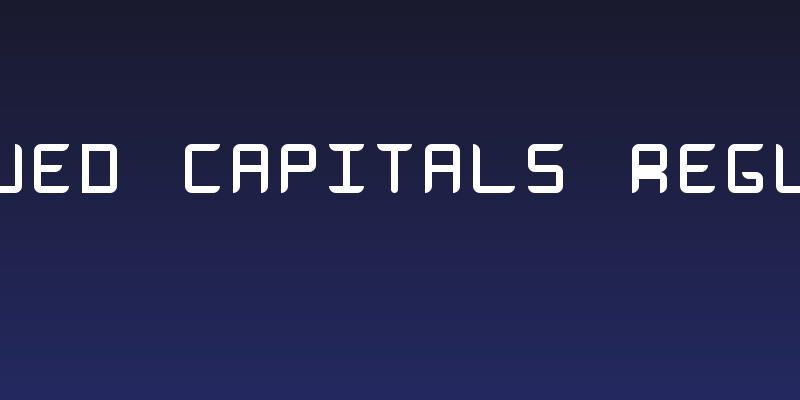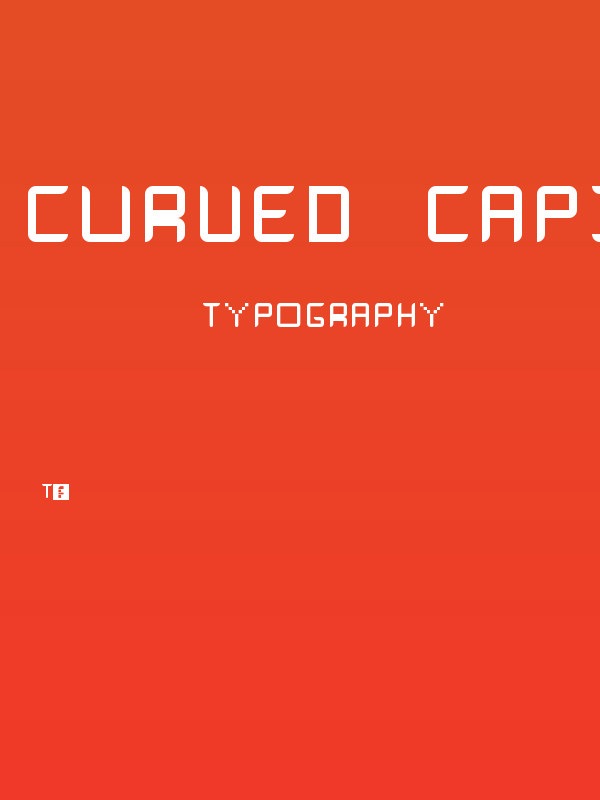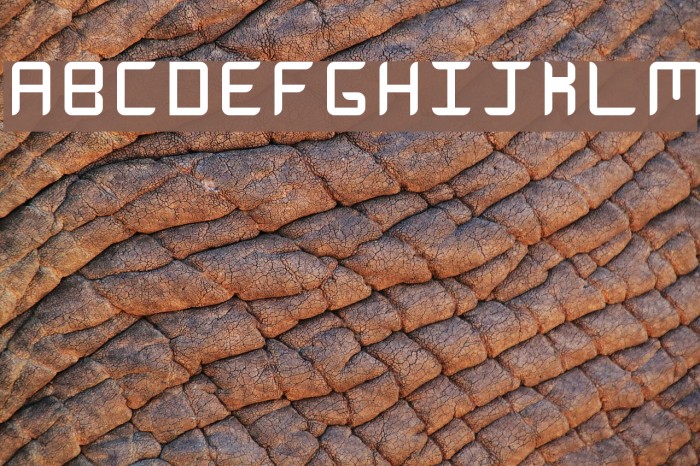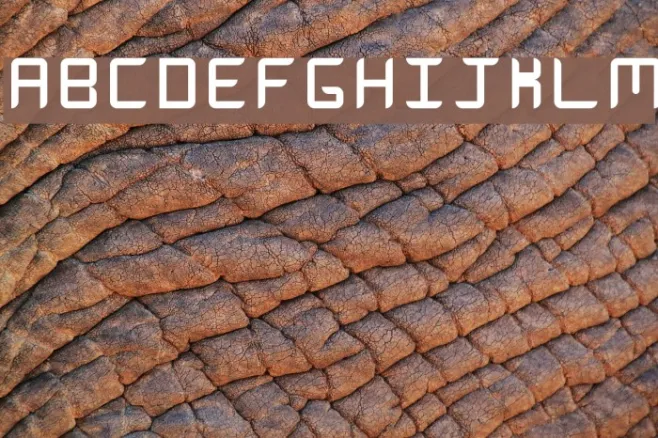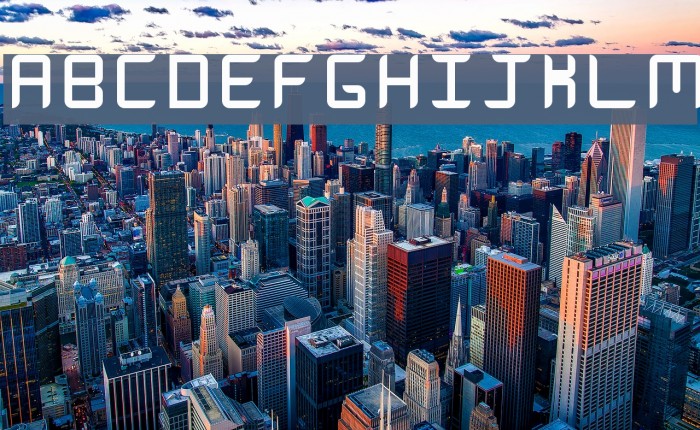
Curved Capitals Regular Font
Curved Capitals Regular Description
This font features a modern, geometric design with rounded edges, giving it a sleek and contemporary appearance. The characters are uniform in height and width, creating a cohesive and balanced look. The strokes are consistent in thickness, contributing to a clean and uncluttered aesthetic. The font's structure is straightforward, with minimal embellishments, making it versatile for various design applications. Its simplicity and clarity make it suitable for both digital and print media, ensuring readability across different sizes and contexts. The rounded corners soften the overall look, adding a touch of friendliness and approachability.
| Proposed Projects | Ideal for tech branding, modern web design, app interfaces, and minimalist posters. |